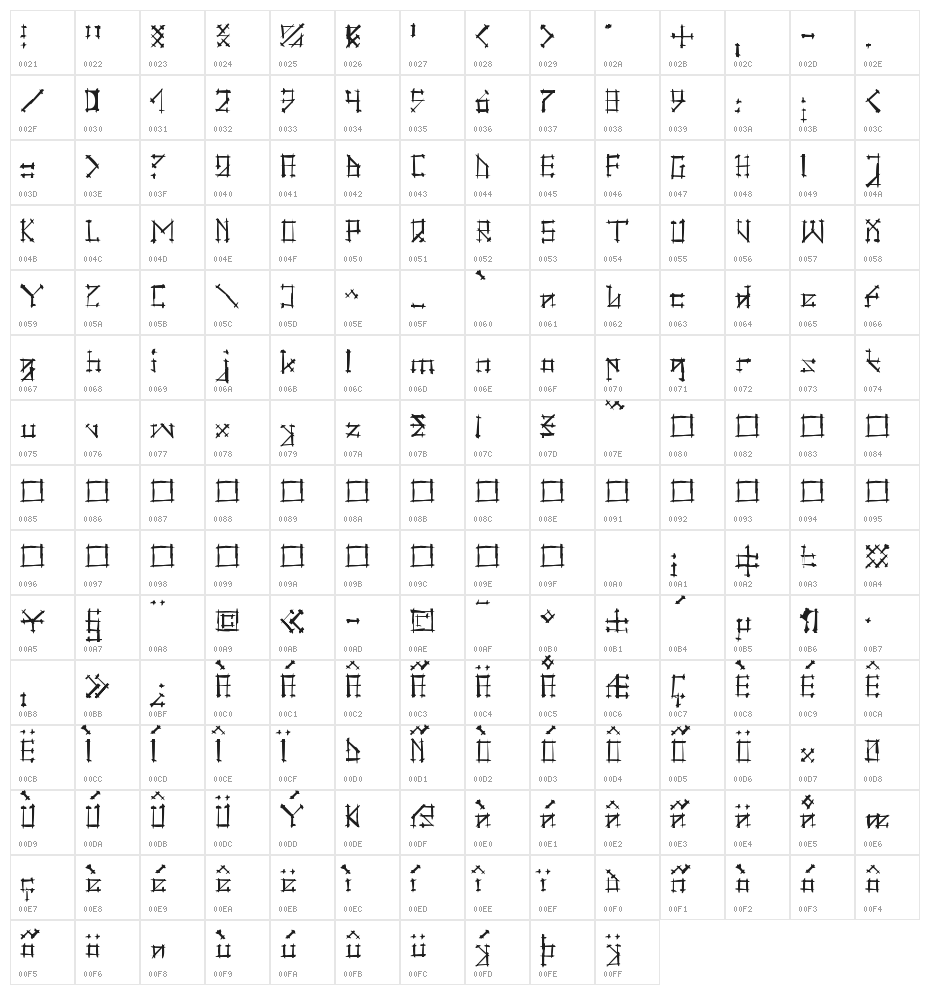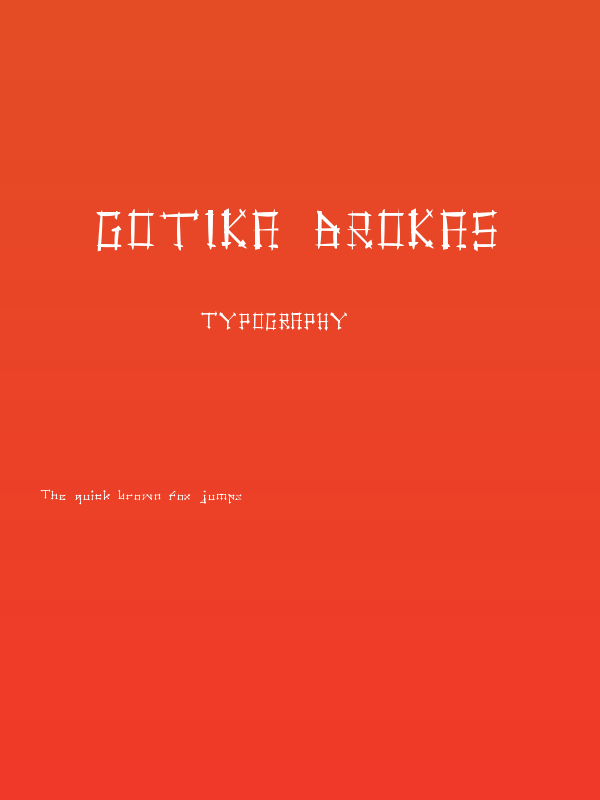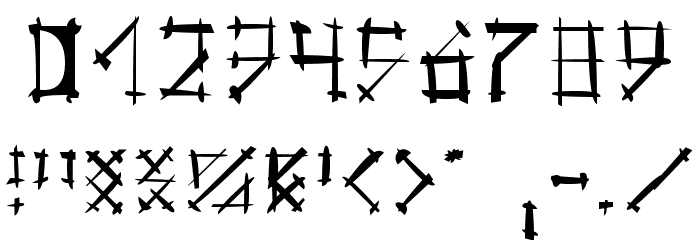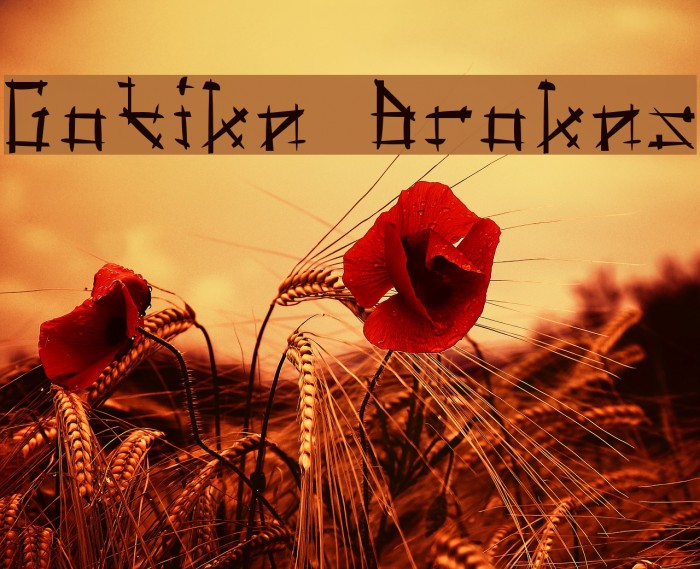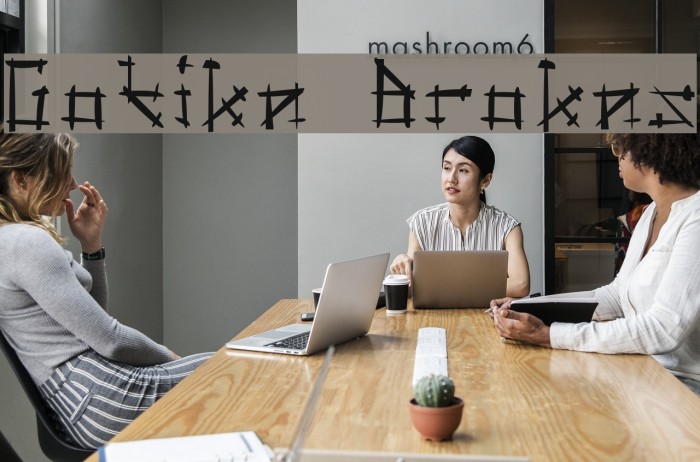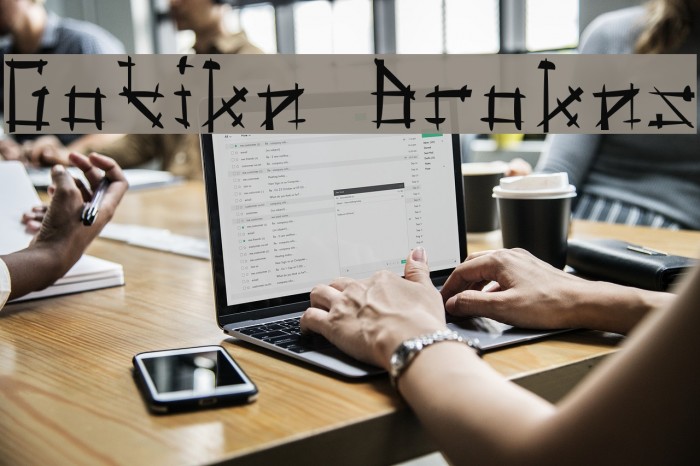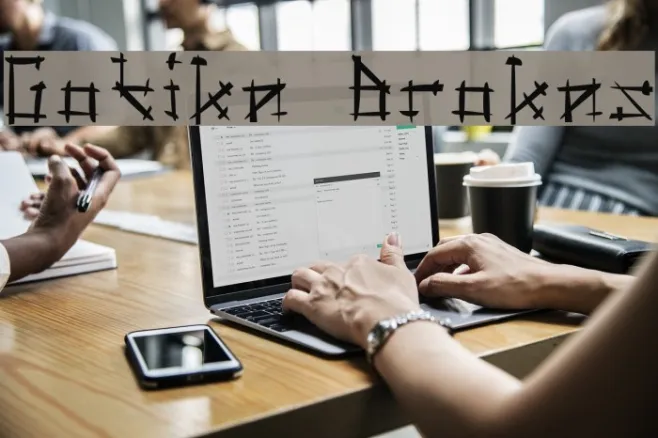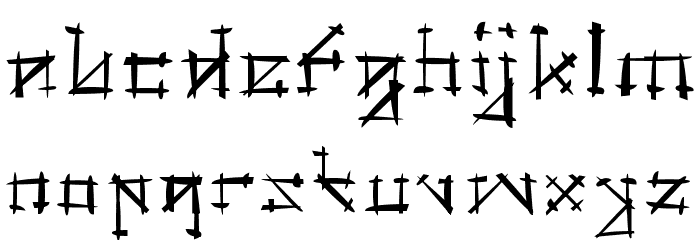
Gotika Brokas Font
Gotika Brokas Description
This font features a distinct and edgy design, characterized by sharp angles and pointed serifs that give it a gothic and medieval appearance. The letters are bold and heavily stylized, with a consistent use of thick and thin strokes that create a dramatic contrast. The uppercase and lowercase letters maintain a cohesive style, with unique embellishments that enhance the font's decorative nature. Numbers and special characters follow the same intricate design, making the font suitable for projects that require a strong visual impact.
| Overall Style | Gothic, Decorative |
| Proposed Projects | Ideal for use in fantasy-themed designs, gothic posters, album covers, or any project that requires a medieval or dramatic aesthetic. |